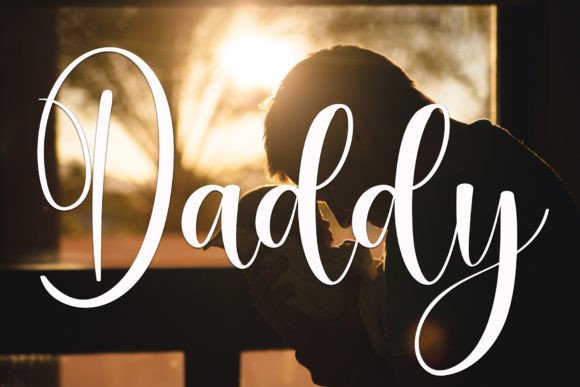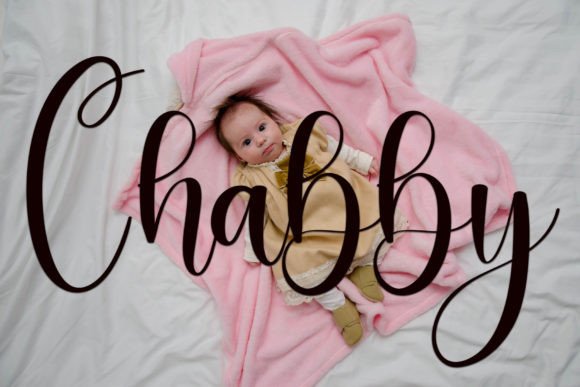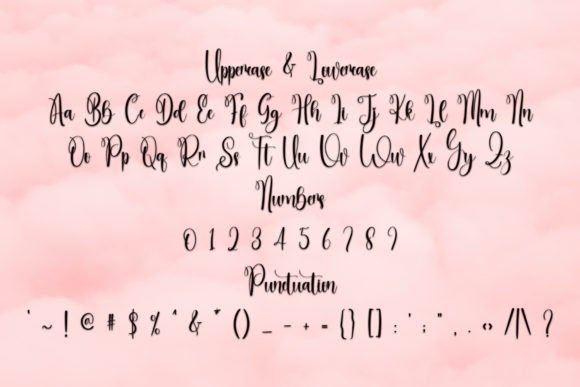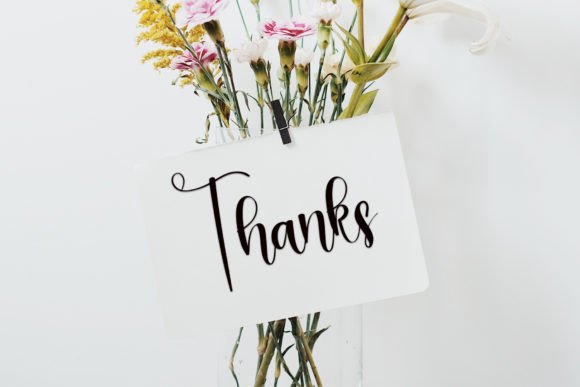
Introducing Always Font: Elevate Your Designs with Timeless Elegance
In the world of typography, a stylish handwritten font can make all the difference in elevating your designs from ordinary to extraordinary. Meet Always Font, a contemporary and impeccably crafted typeface that draws inspiration from timeless classic calligraphy. With its balanced and varied aesthetic, Always Font is designed to enhance the beauty of your projects, making it a perfect addition to your typography collection.
The Inspiration Behind Always Font
Always Font is a masterful blend of traditional calligraphy and modern design sensibilities. Its creation was inspired by the elegance and sophistication of classic calligraphy, with a focus on crafting a font that exudes a sense of refinement and poise. The result is a typeface that feels both nostalgic and contemporary, making it versatile enough to be used in a wide range of design applications.
Key Features of Always Font
So, what sets Always Font apart from other handwritten fonts? Here are some of its key features:
- Balanced and Varied: The font boasts a balanced and varied design, ensuring that your text remains legible and visually appealing, even at smaller sizes.
- Contemporary Atmosphere: Always Font has a distinctly modern feel, making it perfect for designers who want to add a touch of sophistication to their work.
- Impeccable Form: The font’s impeccable form ensures that it looks great in both digital and print formats, making it a versatile choice for various design projects.
Use Cases for Always Font
Always Font’s versatility makes it suitable for a wide range of design applications, including:
- Branding and Logos: Add a touch of elegance to your brand identity with Always Font’s sophisticated and refined aesthetic.
- Wedding and Event Design: Create beautiful wedding invitations, programs, and other event materials with this stunning handwritten font.
- Packaging and Product Design: Elevate your product packaging with Always Font’s modern and sophisticated look.
- Digital and Print Media: Use Always Font in your digital and print projects, such as brochures, flyers, and social media graphics, to add a touch of refinement and poise.
Why Choose Always Font?
With so many fonts available, why should you choose Always Font? Here are a few compelling reasons:
- Unique and Distinctive: Always Font’s unique blend of classic and modern design elements makes it stand out from other fonts.
- High-Quality Design: Always Font is crafted with attention to detail, ensuring that it looks great in various design applications.